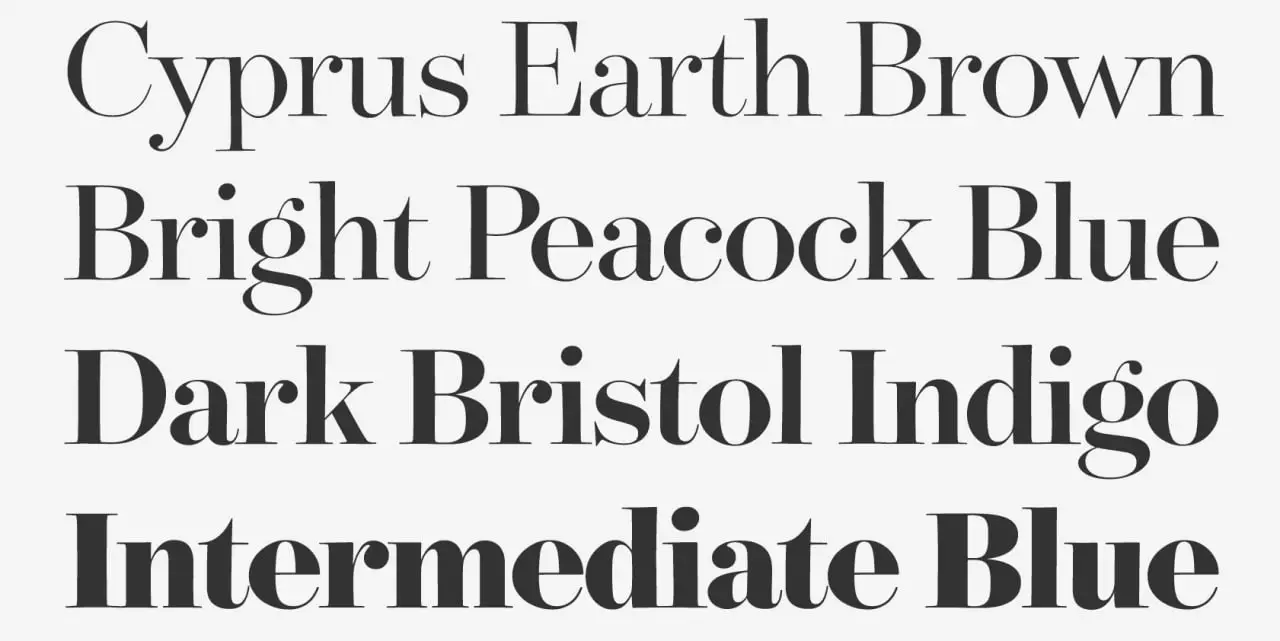
The Hoefler&Co Surveyor Font Family is a meticulously crafted typeface designed for both display and fine text applications. This comprehensive collection includes various weights and styles, ensuring versatility for any design project.
• Multiple weights for flexibility in design
• Optimized for screen and print use
• Elegant and modern aesthetic
• Supports a wide range of languages
Utilize the different weights to create visual hierarchy in your designs. The fine text styles are perfect for body copy, while the display styles can be used for impactful headlines and branding elements.